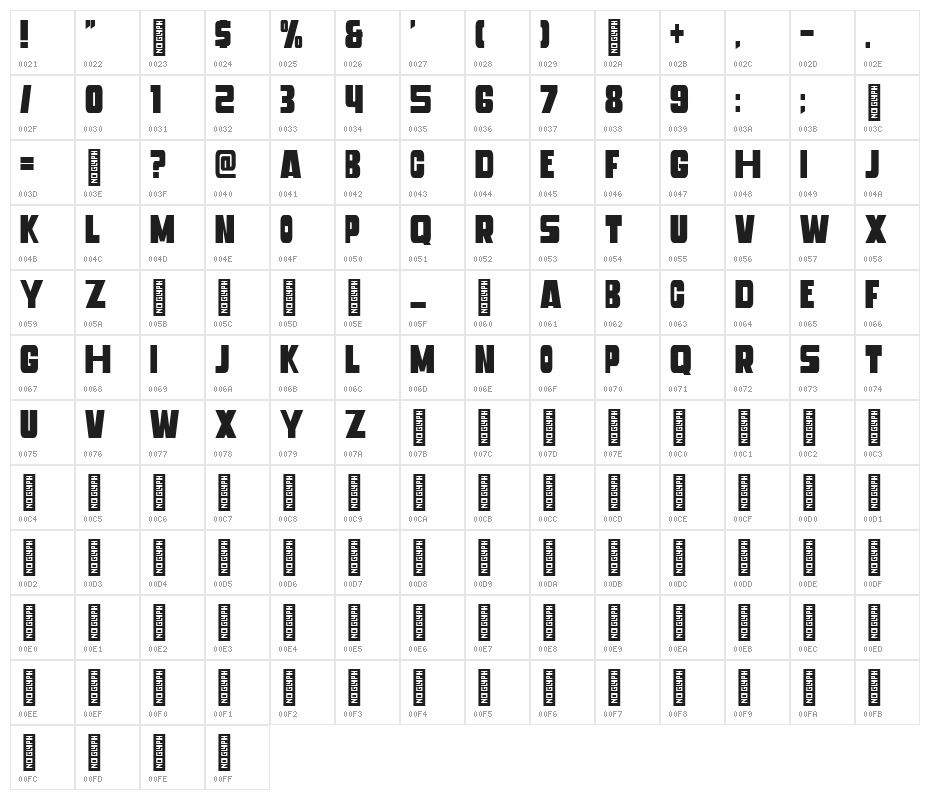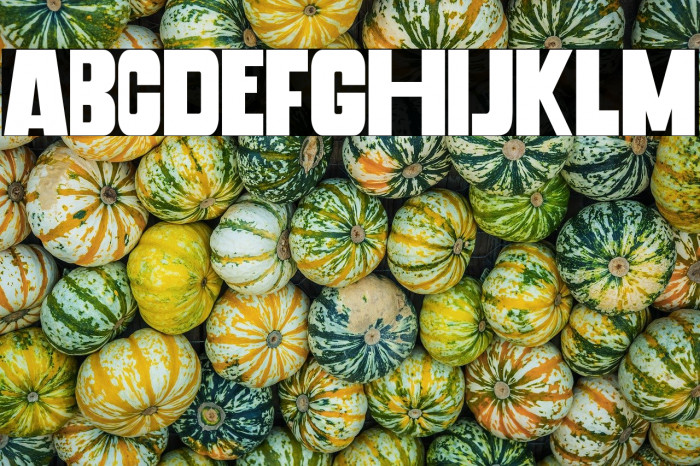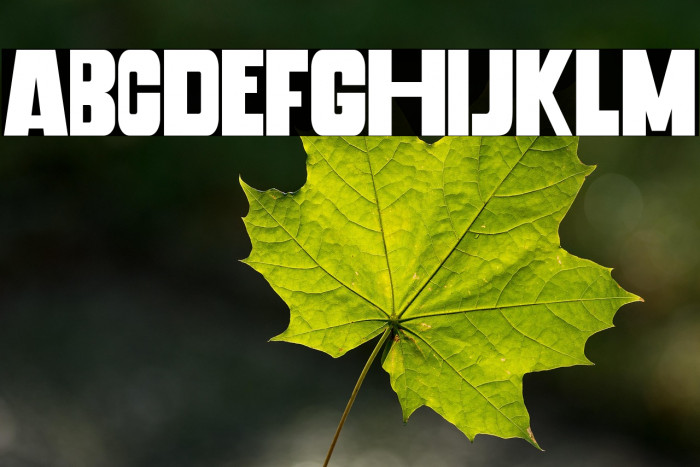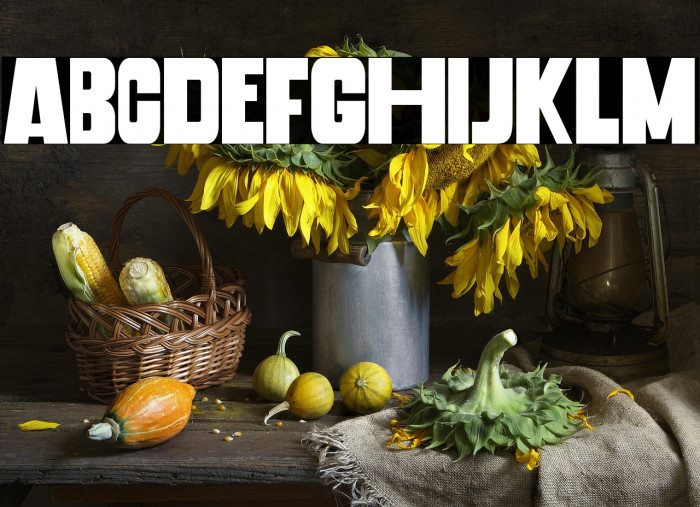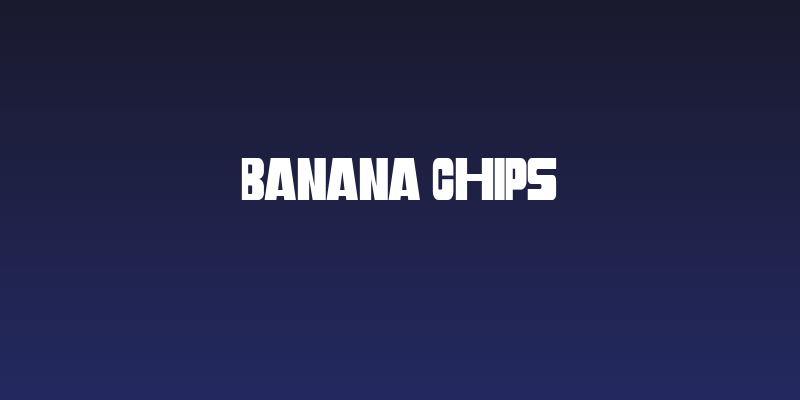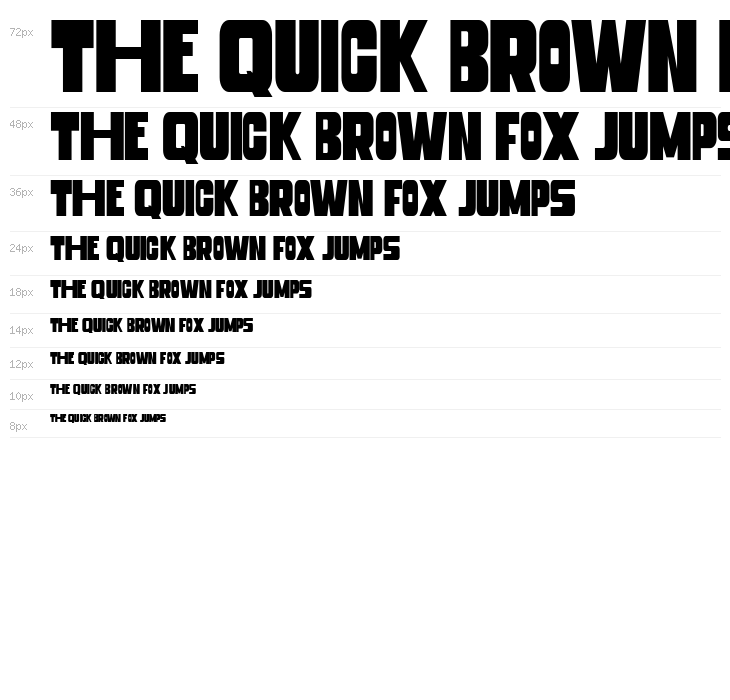
Banana Chips Font
Banana Chips Description
This bold and impactful font features a strong, geometric design with thick, uniform strokes that create a powerful visual presence. The characters are tightly spaced, enhancing the compact and robust appearance. The uppercase letters are particularly striking, with sharp angles and a blocky structure that conveys strength and stability. The numerals and special characters maintain the same boldness, ensuring consistency across all text elements. This font is ideal for making a statement, drawing attention with its commanding style.
| Proposed Projects | Perfect for posters, headlines, branding, and any project requiring a bold statement. |